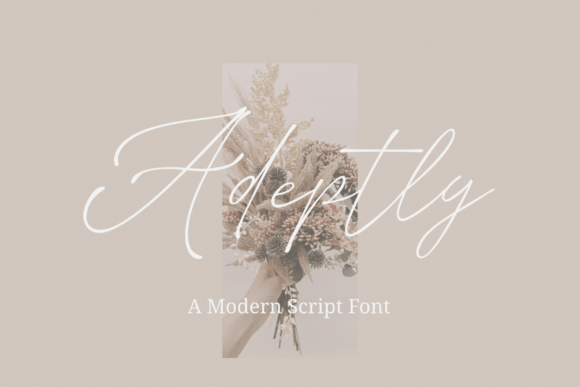
Prepare yourself to be captivated by Adeptly, the enchanting script font that will transform your creative visions into tangible works of art. Dive into a world of elegance and sophistication as you explore the boundless possibilities that await with Adeptly.
Picture this: a breathtaking wedding invitation, adorned with the elegant swirls and graceful strokes of Adeptly. Each letter dances across the page, beckoning your guests to a celebration filled with love and joy. The delicate curves and flourishes of Adeptly create an atmosphere of romance and allure, setting the perfect tone for your special day.
Step into the world of fashion and let Adeptly guide you towards creating stunning fashion cards that leave a lasting impression. The timeless beauty of Adeptly complements the vibrant hues and bold designs of your clothing line, effortlessly capturing the essence of style and elegance. Let your fashion cards speak volumes, conveying the passion and creativity that lies behind your brand.
Adeptly is more than just a font; it's an artistic journey that invites you to explore the depths of your creativity. With its versatile nature, Adeptly seamlessly blends with various design concepts, adding a touch of sophistication to logos, branding materials, and even everyday correspondence. Let Adeptly be your creative companion, transforming ordinary words into extraordinary expressions that resonate with your audience.
As you embark on this creative journey with Adeptly, you'll discover a font that not only enhances your designs but also ignites a spark of inspiration within you. Let Adeptly be the catalyst for your artistic endeavors, propelling you towards new heights of creativity and imagination.
So, embrace the allure of Adeptly and elevate your designs to new realms of beauty and elegance. Let your imagination run wild as you create designs that capture hearts and leave an indelible mark on the world. With Adeptly by your side, the possibilities are endless.